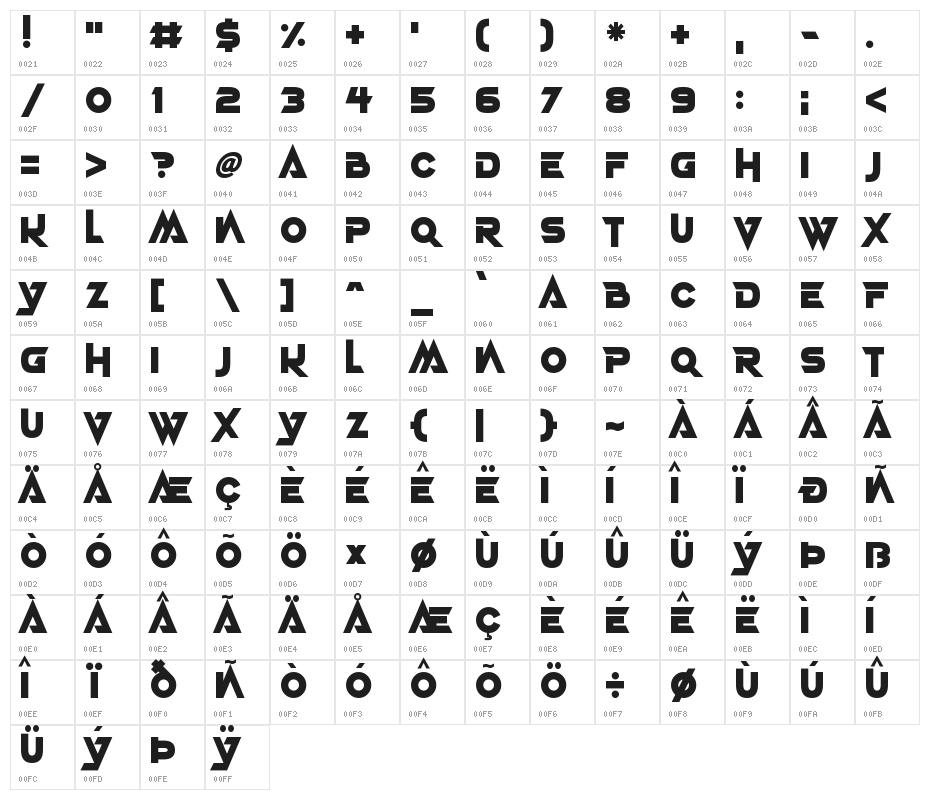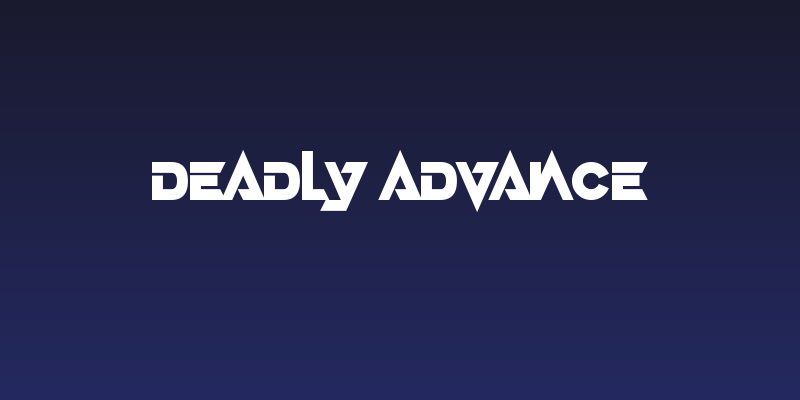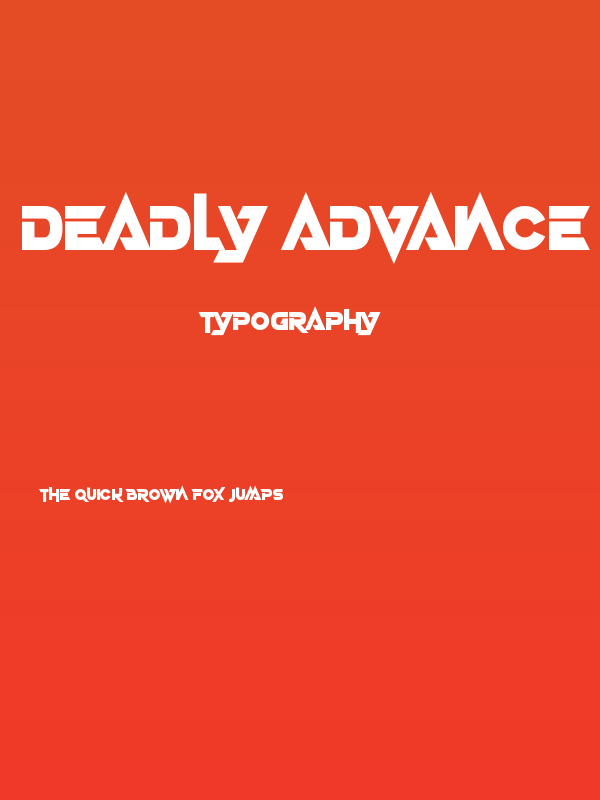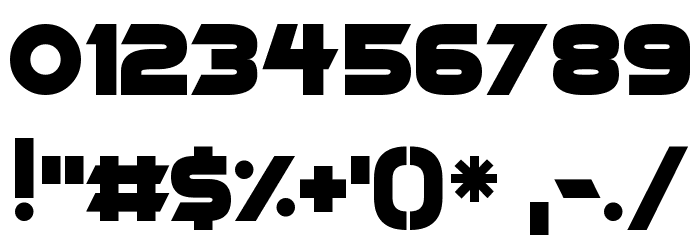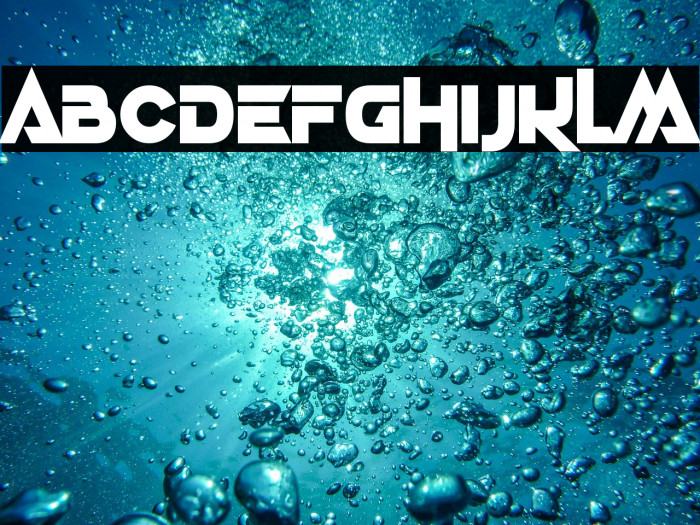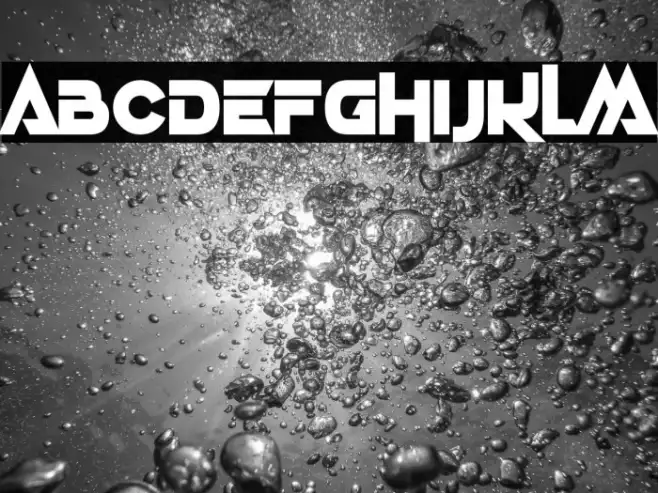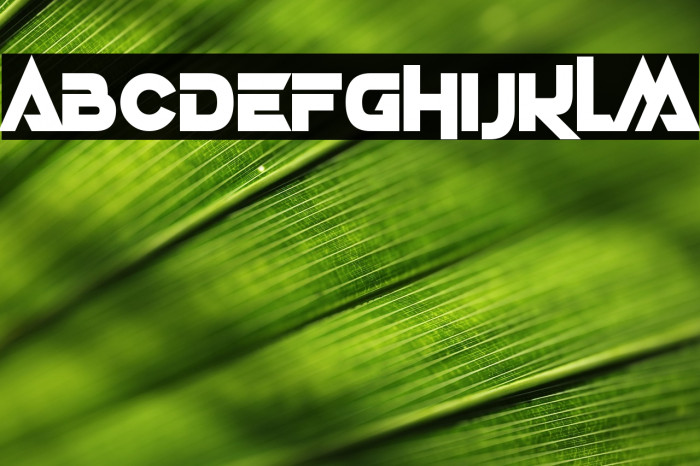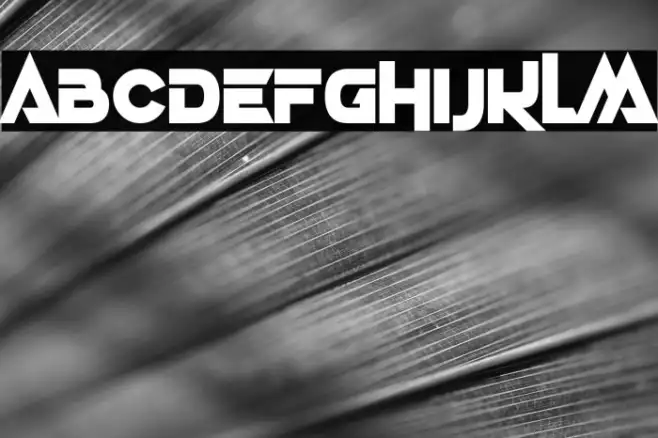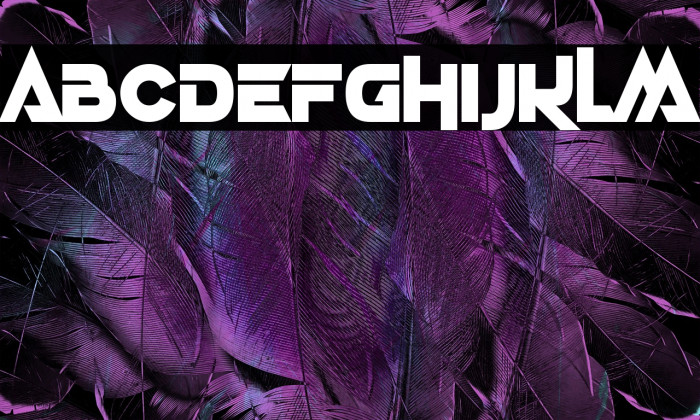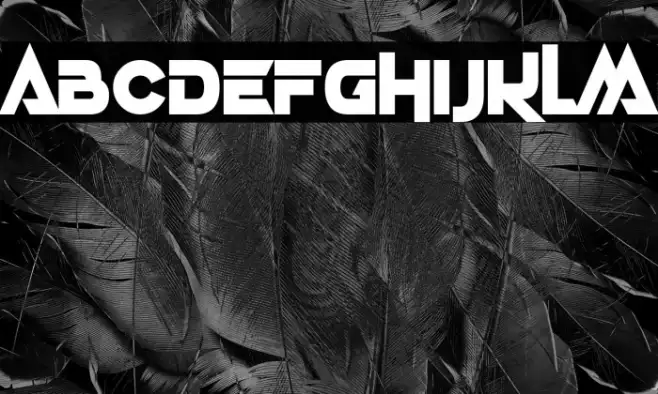
Deadly Advance Font
Deadly Advance Description
This font features a bold and futuristic design with sharp, angular edges and geometric shapes. The uppercase letters are particularly striking, with a strong emphasis on diagonal lines and pointed terminals. The lowercase letters maintain the same boldness, creating a cohesive look throughout the typeface. Numbers and special characters are designed with the same angular style, ensuring consistency. The overall appearance is dynamic and modern, making it suitable for projects that require a strong visual impact. The font's unique style is ideal for capturing attention and conveying a sense of innovation and forward-thinking.
| Overall Style | Futuristic, Modern |
| Proposed Projects | Ideal for sci-fi movie posters, video game titles, tech branding, and futuristic event flyers. |